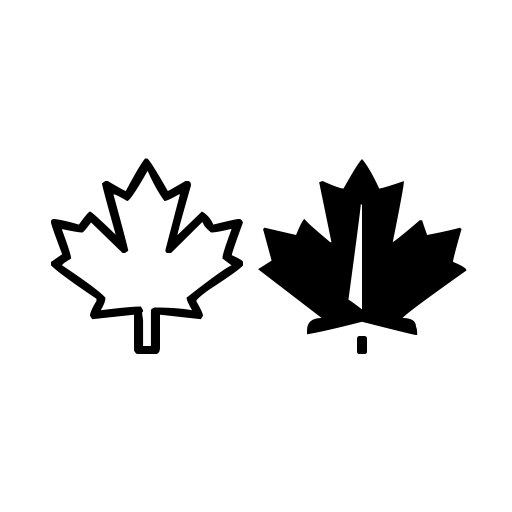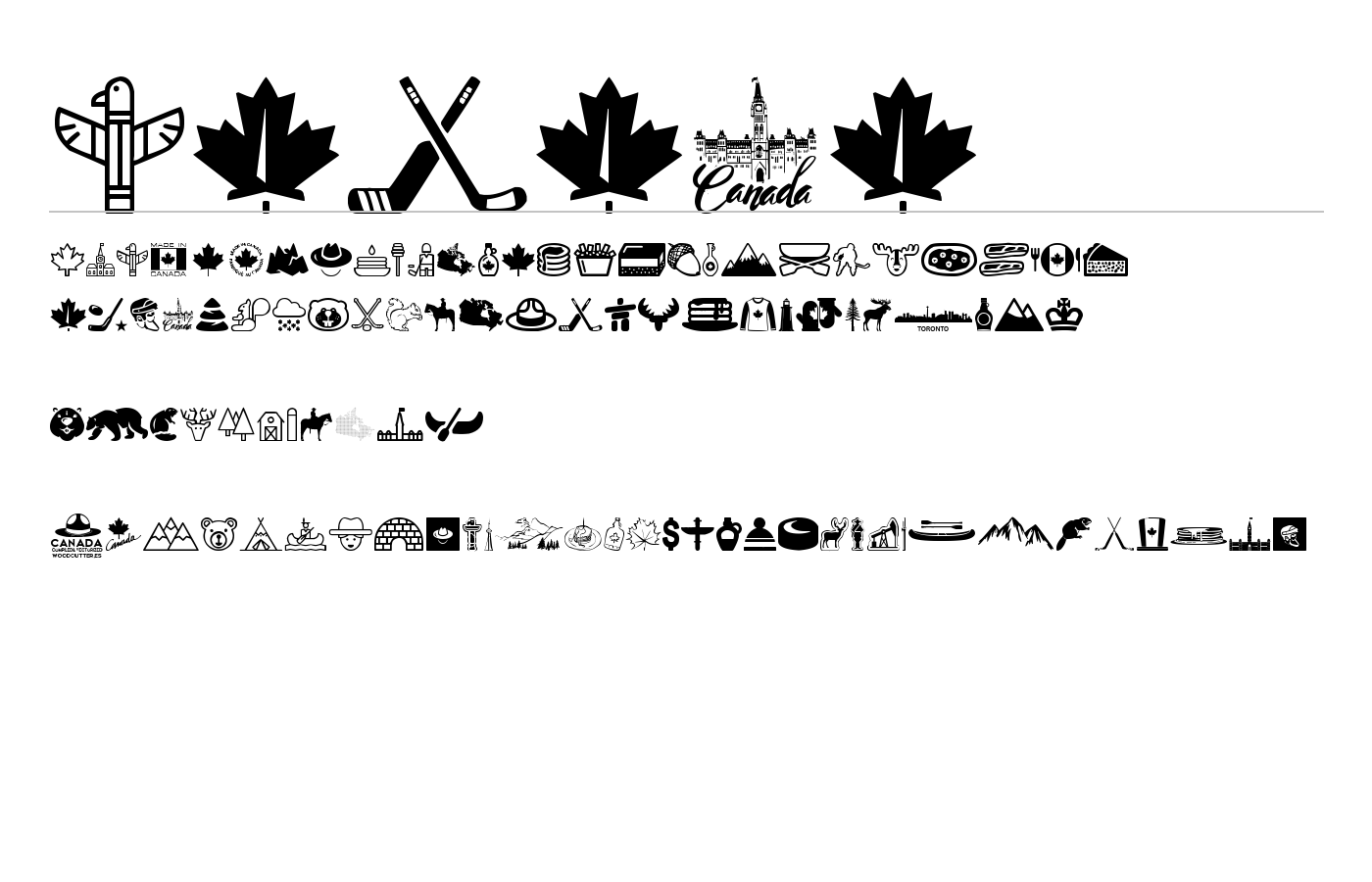
Canada Font is a playful and detailed symbol font featuring a rich collection of iconic Canadian imagery, from maple leaves and hockey sticks to wildlife and landmarks. Perfect for adding a uniquely Canadian touch, this font works wonderfully in themed designs, travel promotions, and cultural branding where visual storytelling and national pride are key. Its distinctive icons bring character and charm to packaging, posters, and editorial projects that celebrate Canada.
Canada Font
About Canada Font